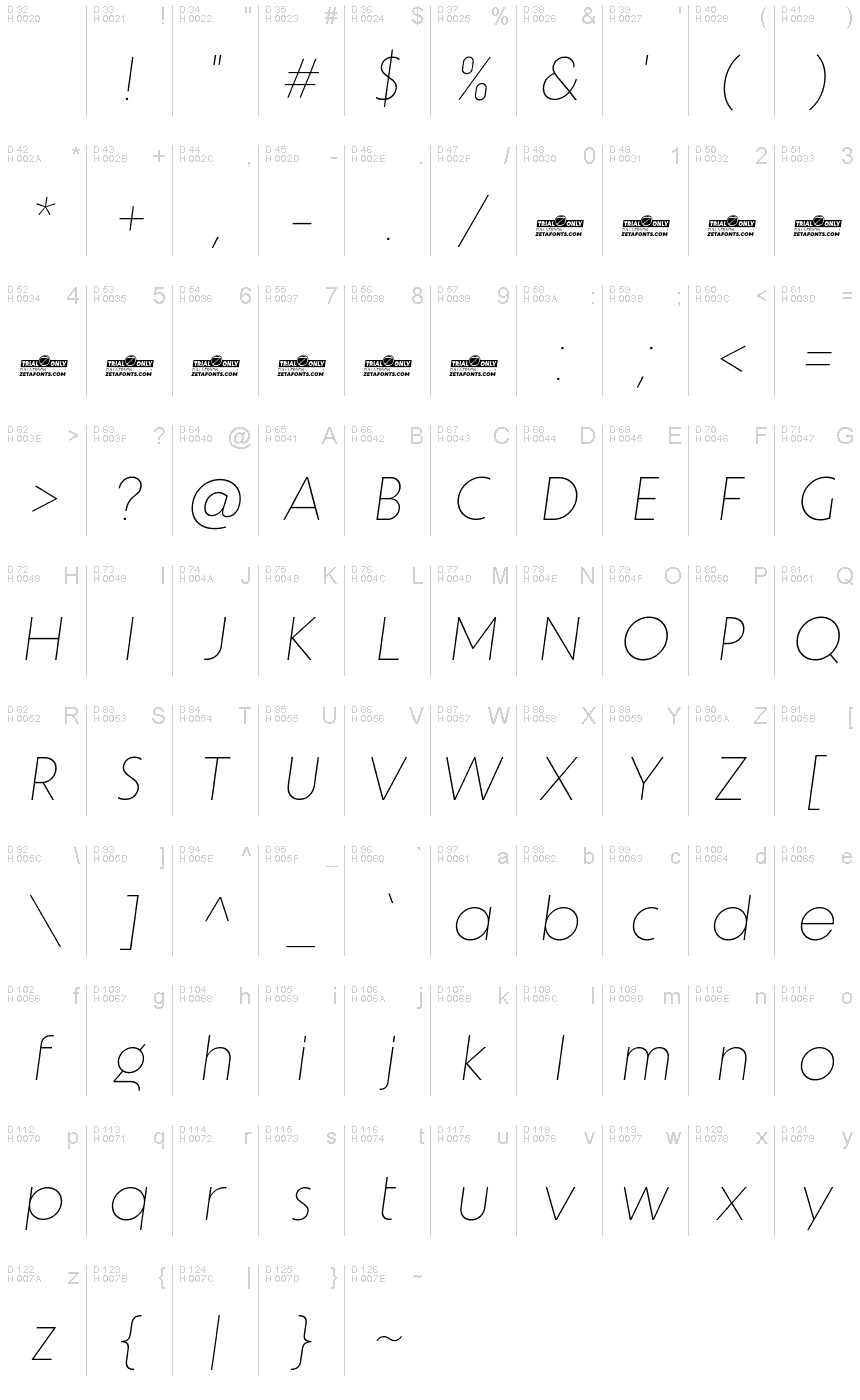
Unigeo64 Trial Extralight Italic
Unigeo64 Extralight Italic is a font that reimagines the essence of vintage computing for the modern creative. Crafted by Zetafonts' Cosimo Lorenzo Pancini and Francesco Canovaro, this member of the Unigeo family marries the clean, geometric lines of sans serif design with a nostalgic nod to retro gaming and photo-lettering elegance. Its extra-light weight dances with grace on the page, offering a delicate yet assertive presence that speaks volumes in subtlety.
With its unique blend of past and present, Unigeo64 Extralight Italic stands out as an ideal choice for designers seeking to inject personality into branding, editorial design, or any project that calls for a touch of vintage flair without sacrificing contemporary readability. Whether you're crafting logos that demand attention or composing layouts that require an airy touch, this typeface asserts itself as a versatile tool in your creative arsenal – one that pays homage to its roots while firmly planted in present-day versatility.